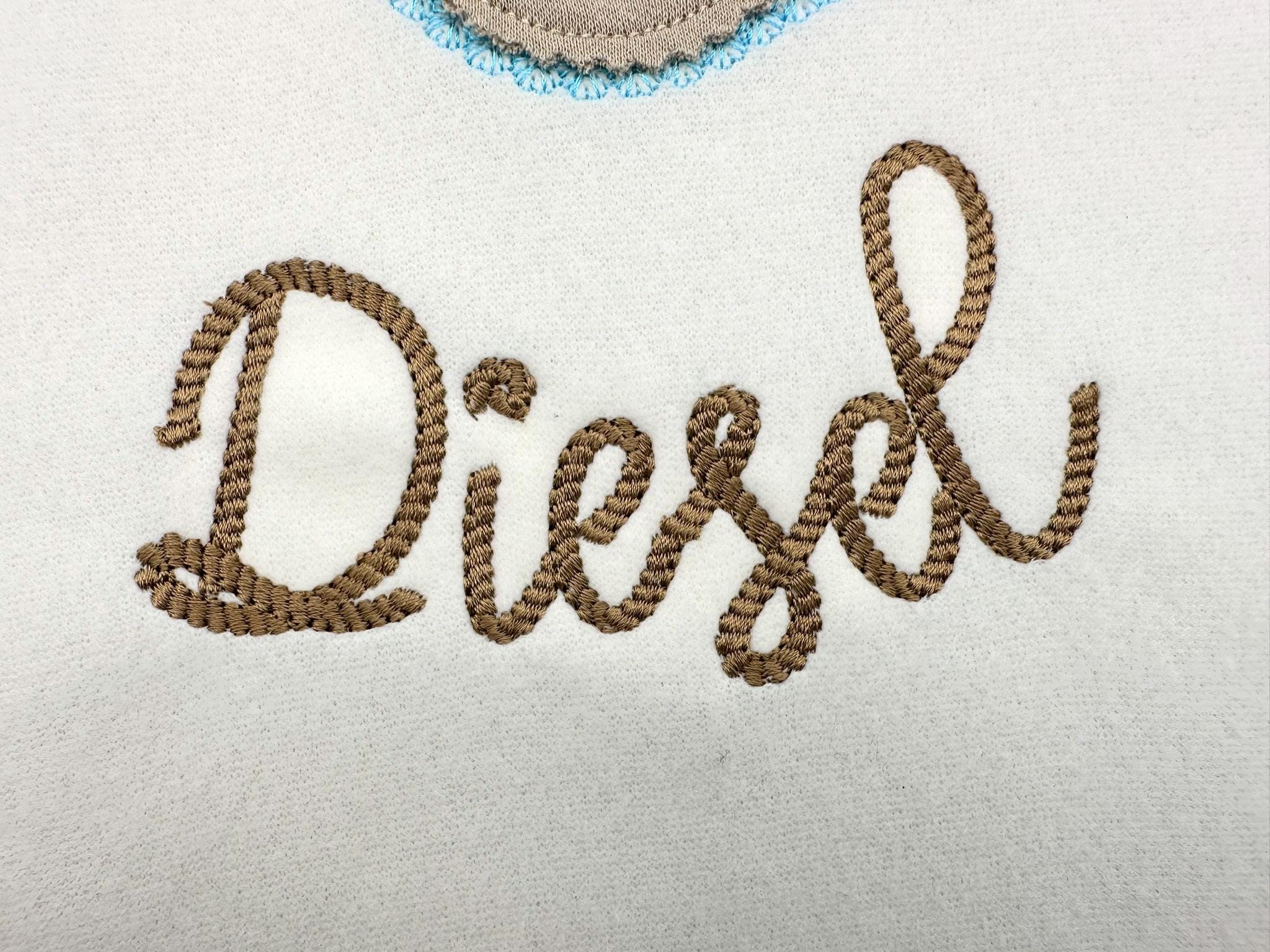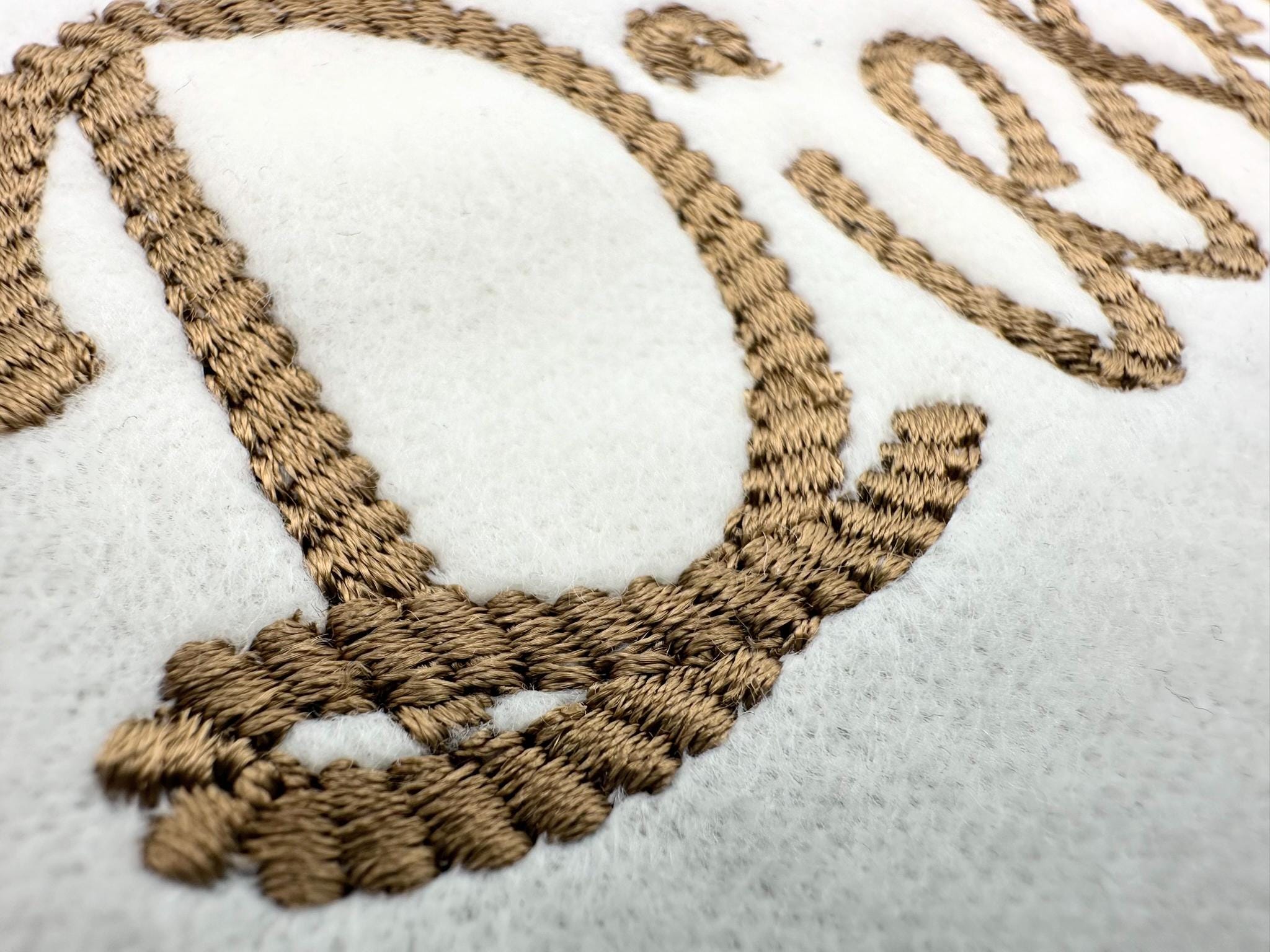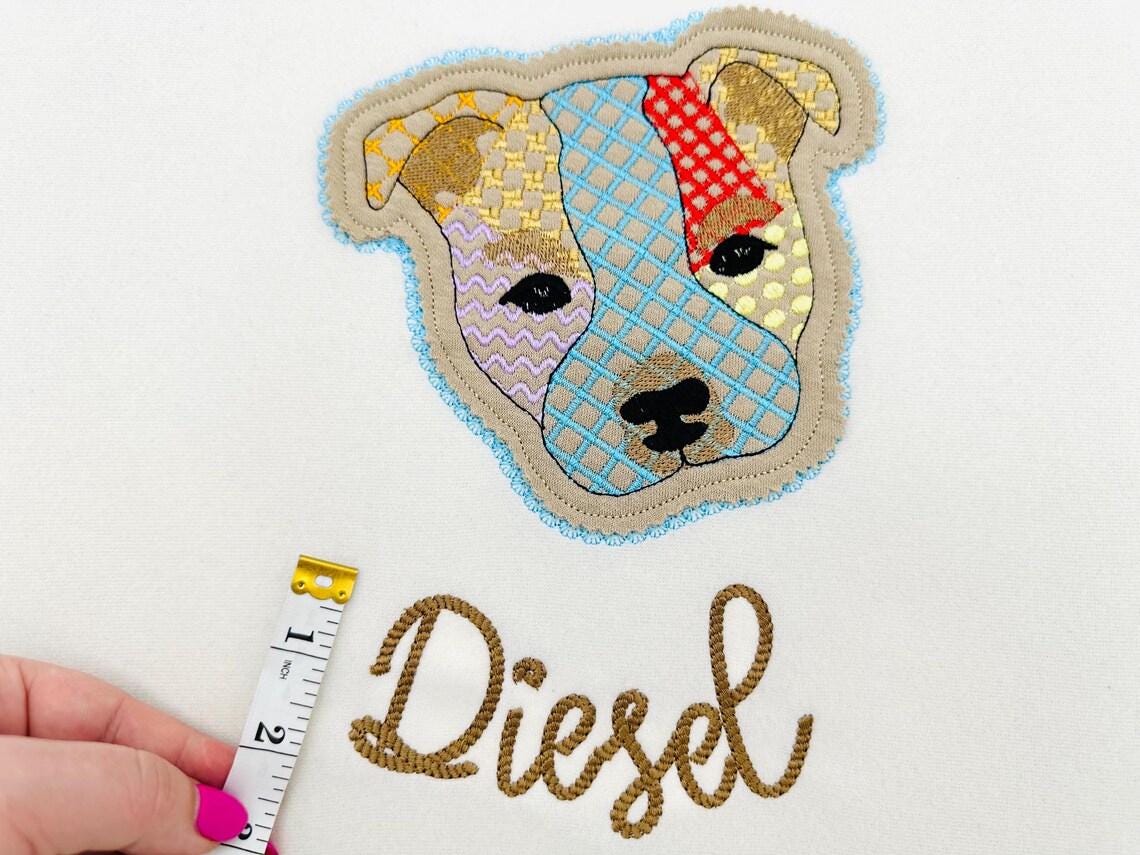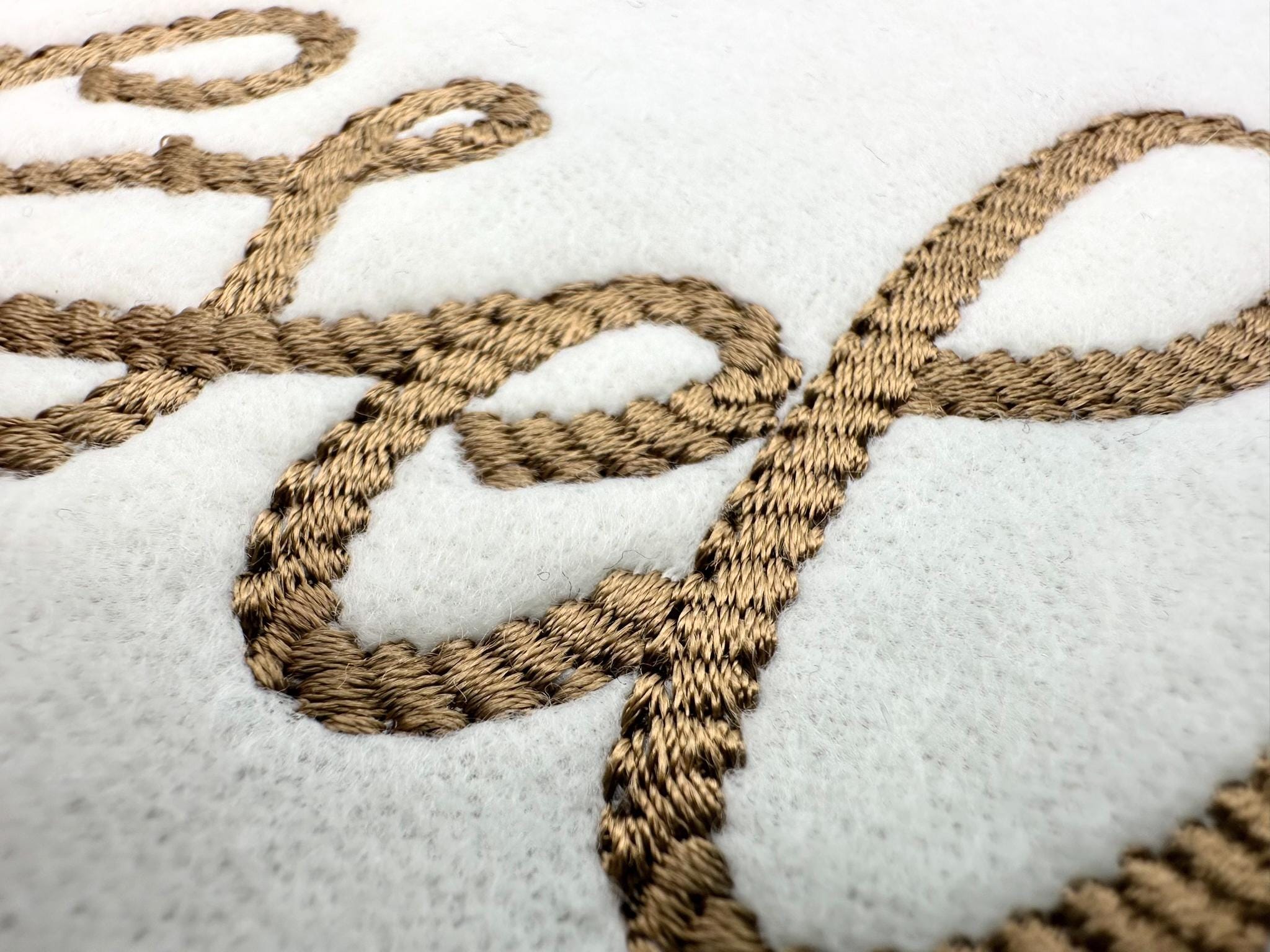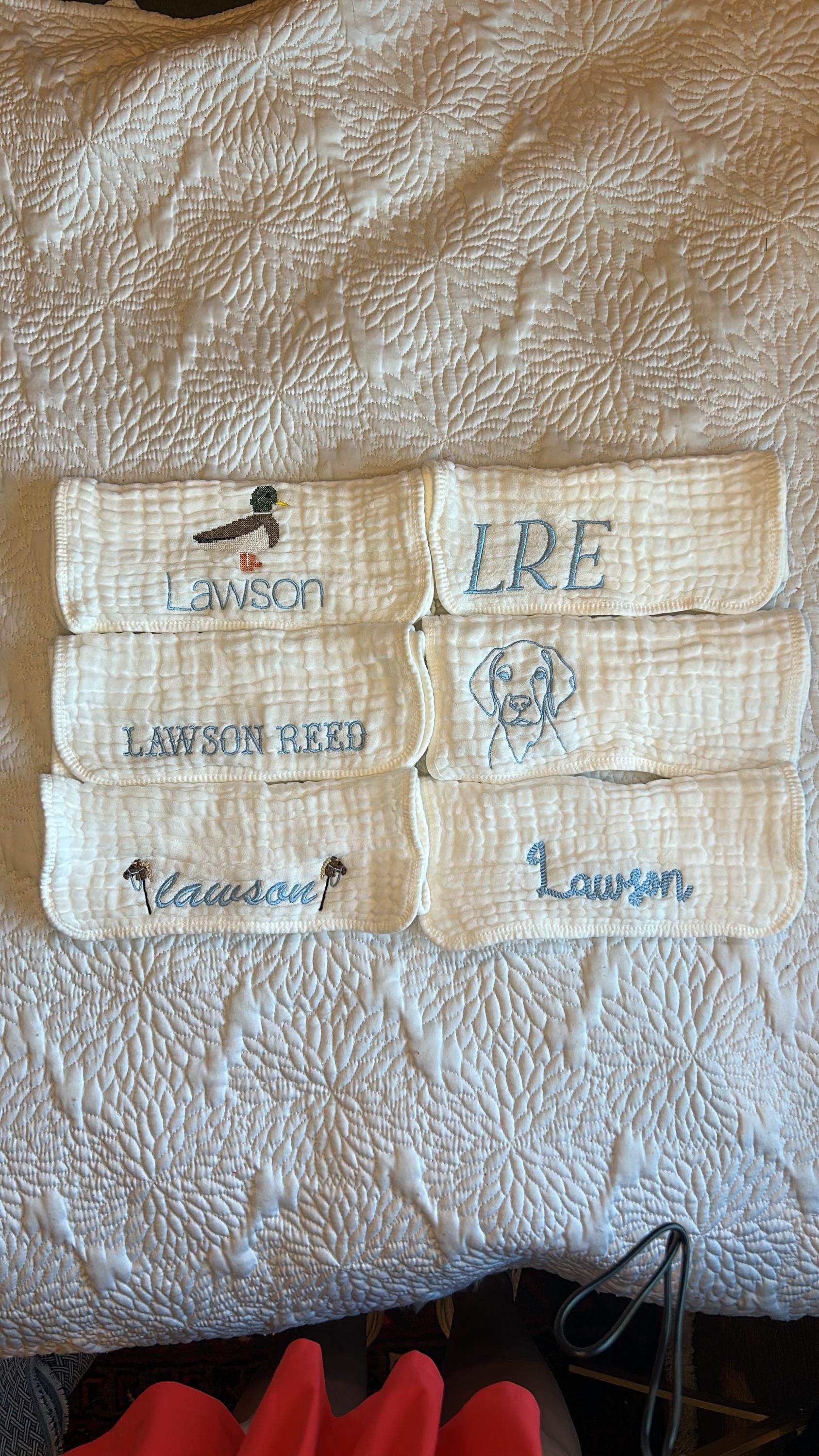
Rope stitch FONT machine embroidery designs in assorted mini sizes alphabet letters playful name monogram girl cowgirl rope lasso BX
Nice font, stitched out great!
So cute and stitched out very nice!